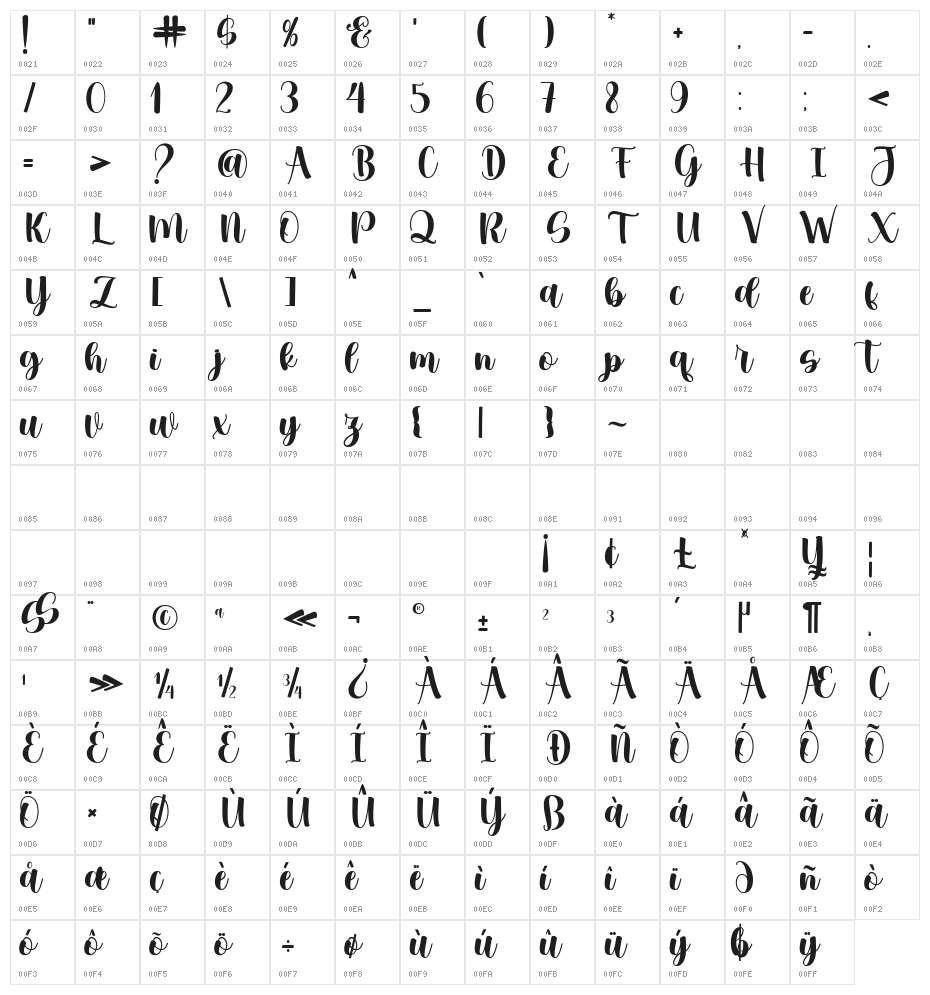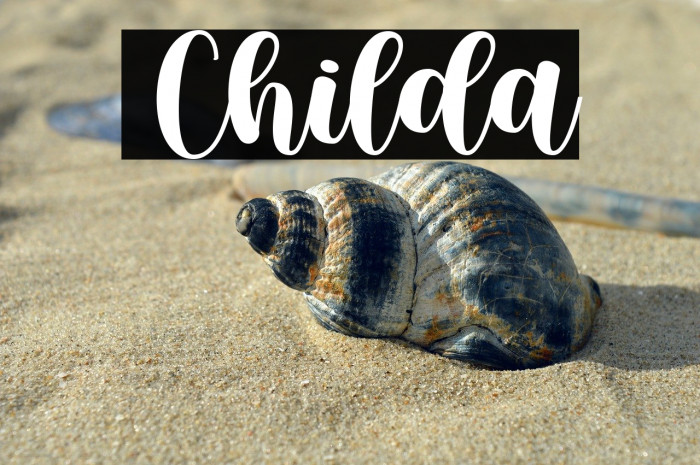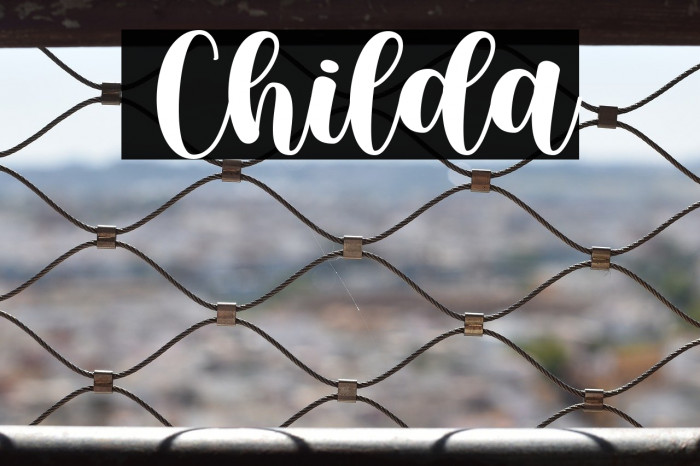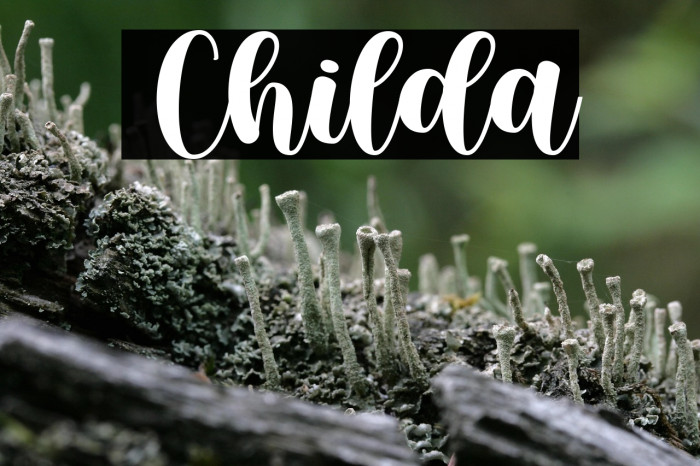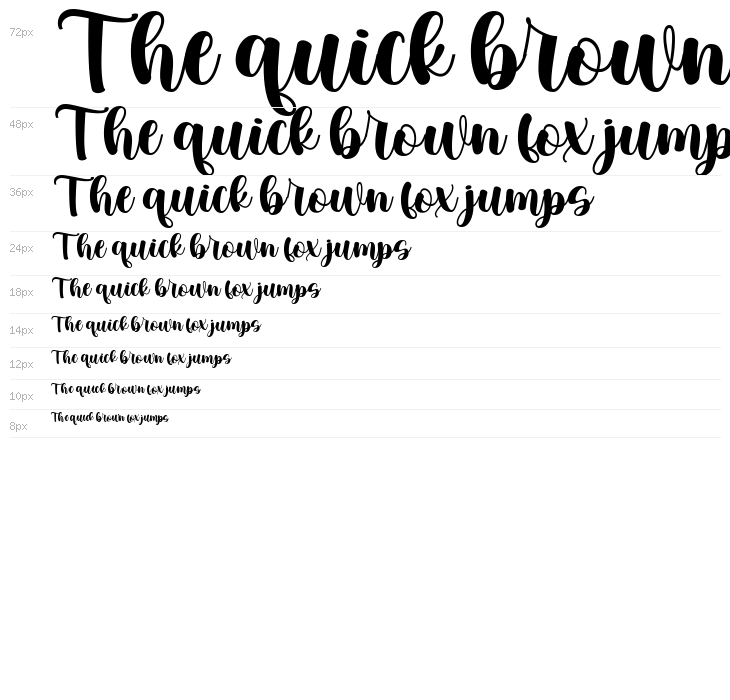
Childa Font
Childa Description
This font features a playful and elegant script style with a handwritten appearance. The uppercase letters are bold and flowing, with a slight slant that adds a dynamic feel. The lowercase letters maintain a consistent style, with smooth curves and loops that enhance its decorative nature. The numerals are distinct and easy to read, complementing the overall aesthetic. Special characters are creatively integrated, maintaining the font's cohesive look. This font is ideal for projects that require a touch of elegance and personality.
Use CaseLogos, Headlines, Invitations
Proposed ProjectsIdeal for wedding invitations, greeting cards, branding, and social media graphics.